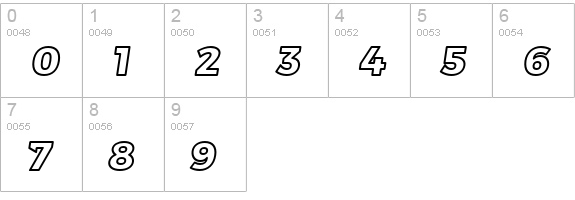
Trueno ExtraBold Outline Italic Font Details
Trueno ExtraBold Outline Italic is an extra-heavy, attention-grabbing, italic variant in the Trueno typeface family \xE2\x80\x94 well suited to high-impact headlines, posters, and bold branding.
Trueno ExtraBold Outline Italic font is a stunningly bold and expressive typeface that exudes confidence and modernity. Its sleek and dynamic design makes it perfect for grabbing attention and making a strong visual impact. The outline style of this font adds a unique and eye-catching touch, giving your designs a sense of depth and dimension. The italic slant adds a touch of elegance and sophistication, making it ideal for projects that require a touch of personality and flair. With its bold and powerful appearance, Trueno ExtraBold Outline Italic font is perfect for headlines, titles, and logos that need to make a statement. Whether you're designing a poster, a website, or a branding project, this font will ensure that your message stands out from the crowd. But what makes Trueno ExtraBold Outline Italic font even more appealing is that it is freely available to download at FontsMarket.com. This means that you can easily get your hands on this stunning font and use it in your projects without any hassle. Whether you're a professional designer or a hobbyist, this font gives you the freedom to create stunning visuals without breaking the bank. So, if you're looking for a stylish and versatile font that will make your designs pop, look no further than Trueno ExtraBold Outline Italic font. Download it for free at FontsMarket.com and start adding a touch of boldness and sophistication to your projects today.